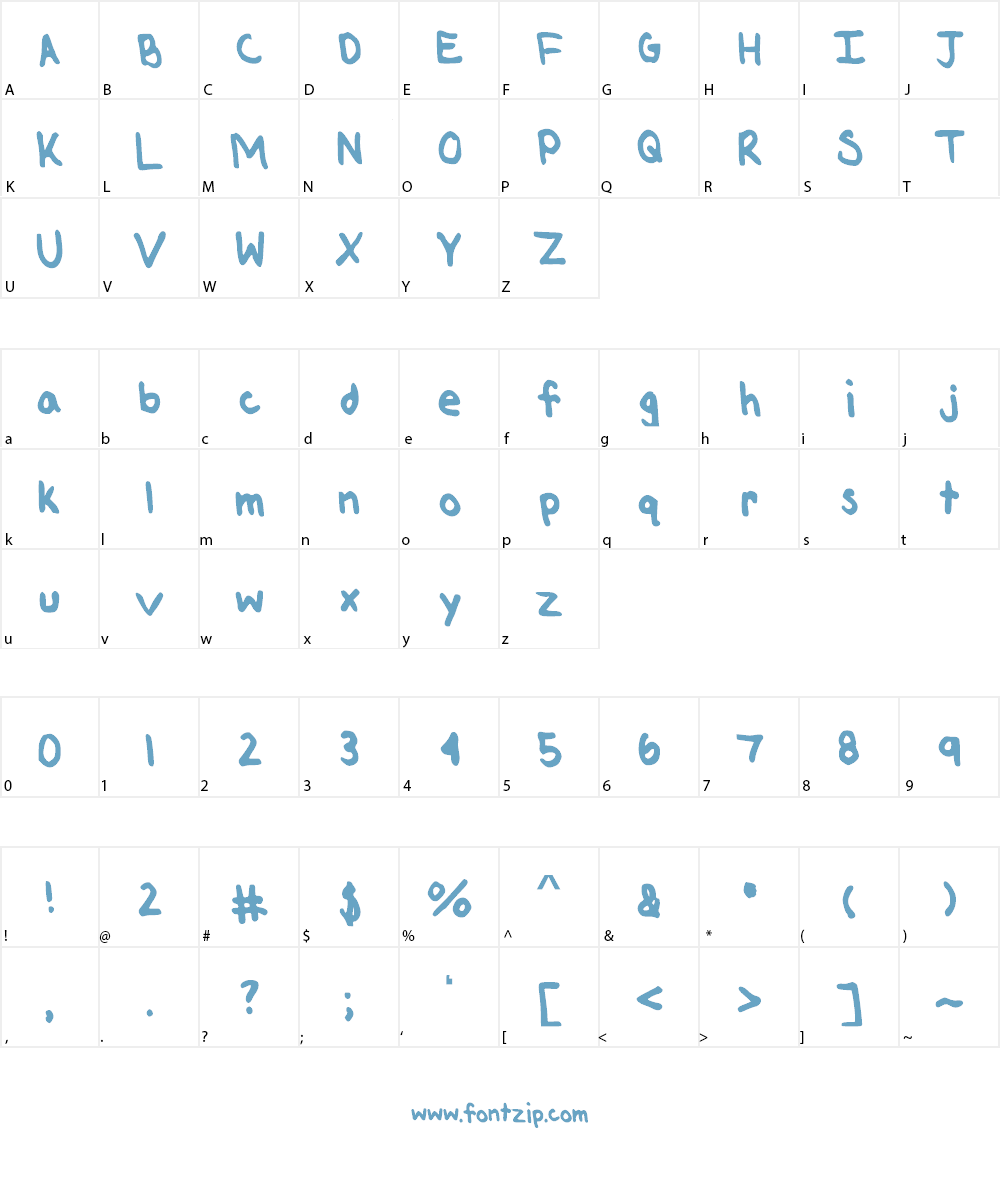
Hey, I'm Kaylee! :) I made this font for a site I'm on, TaylorConnect. That's the main reason I've made this font. Thanks for looking at it, and hopefully downloading it! I named this Relctant since this is the perspective of how I think some shy, quiet, sit in the corner and read, type of a girl writes.